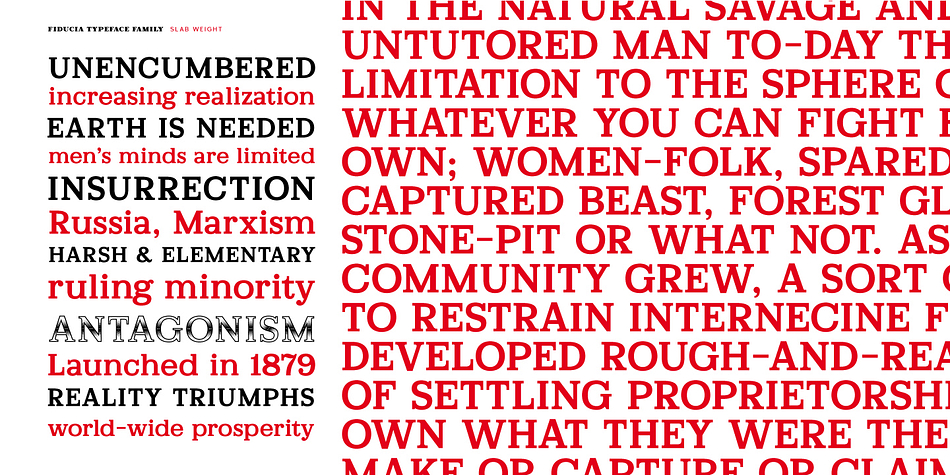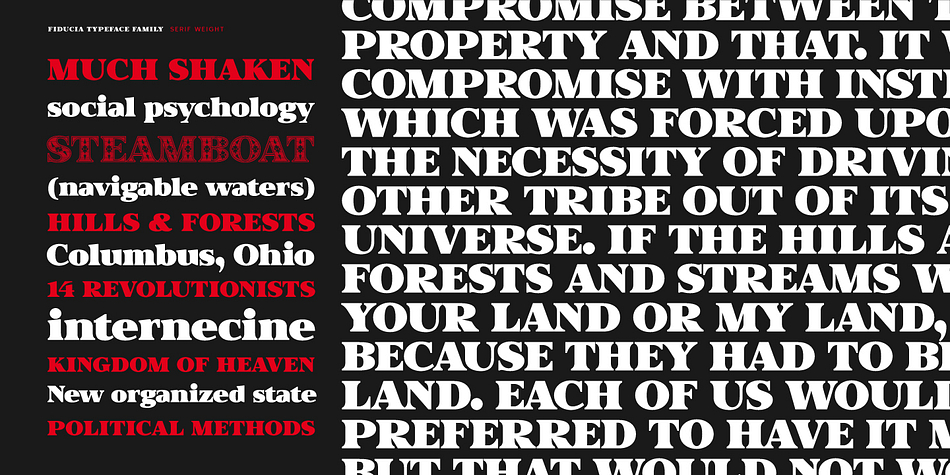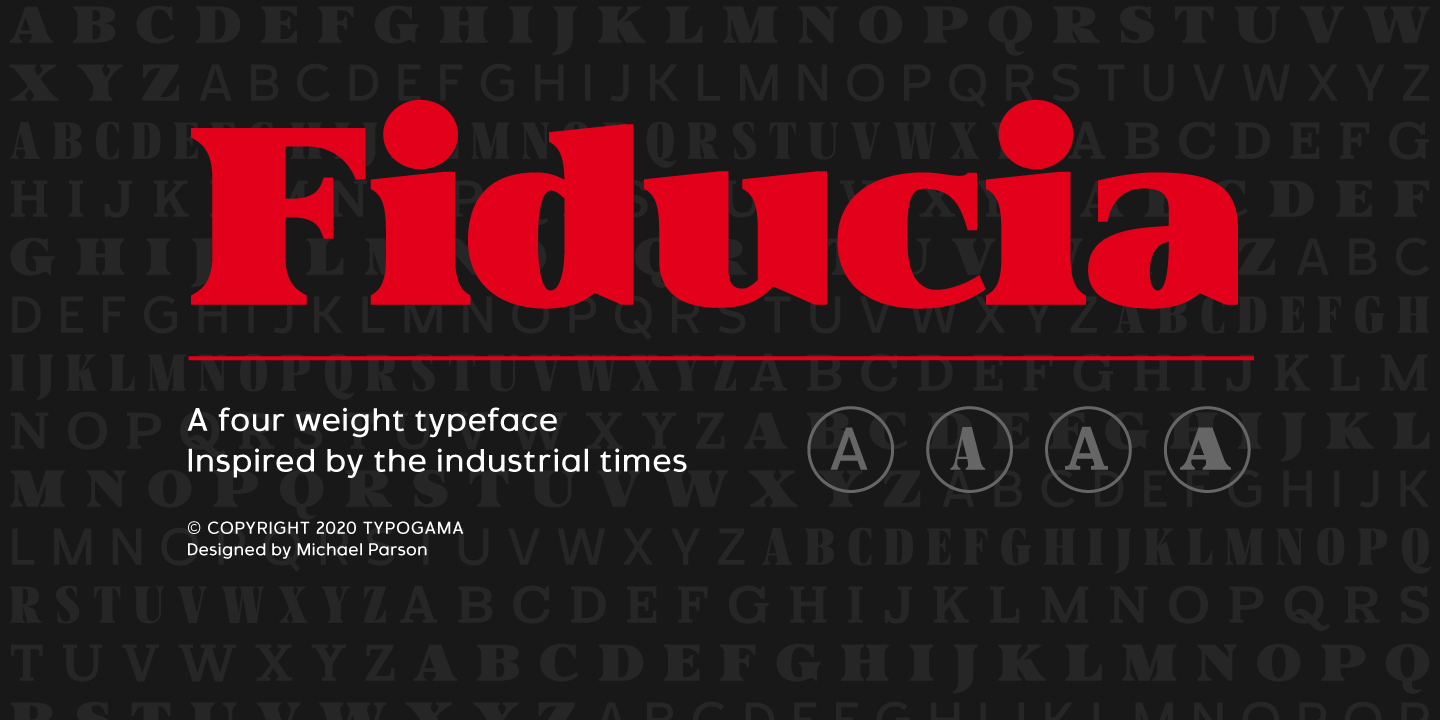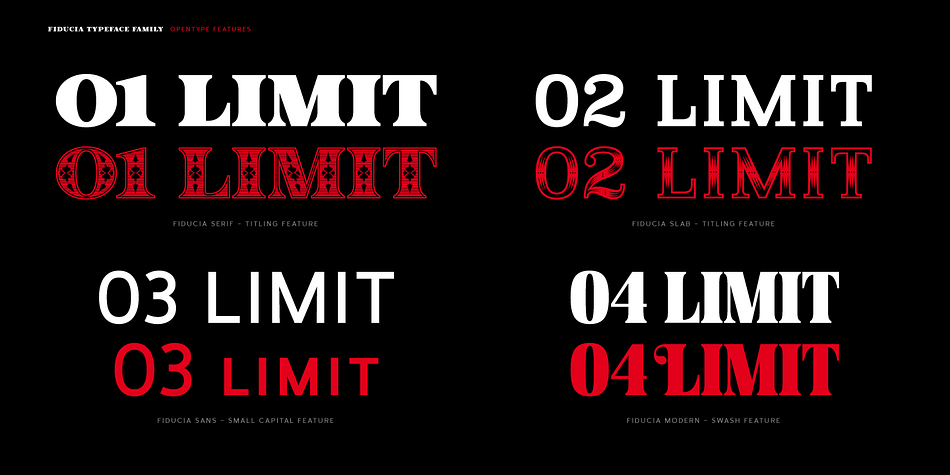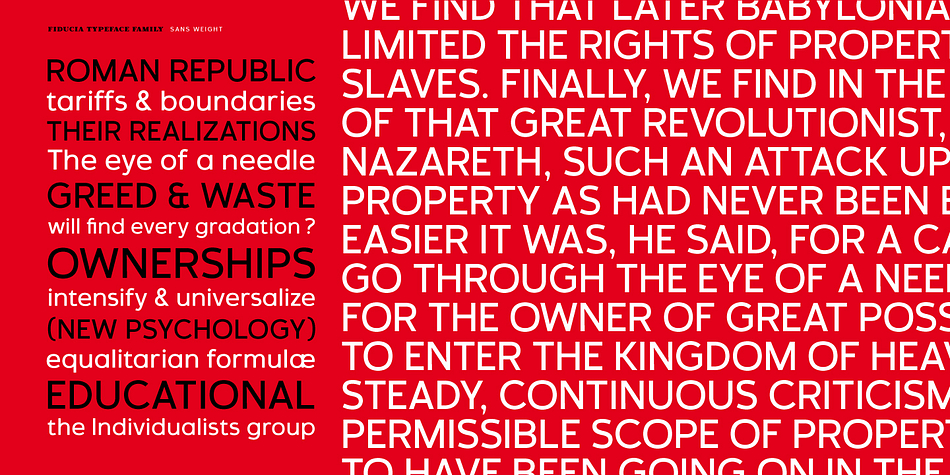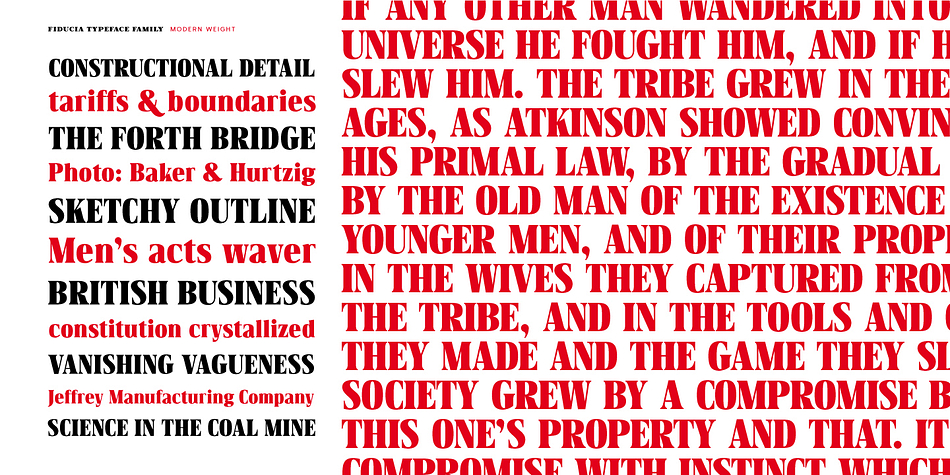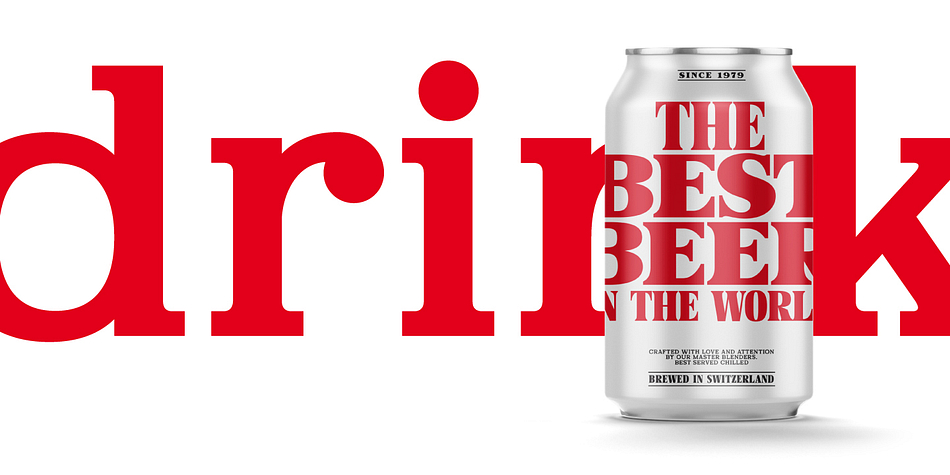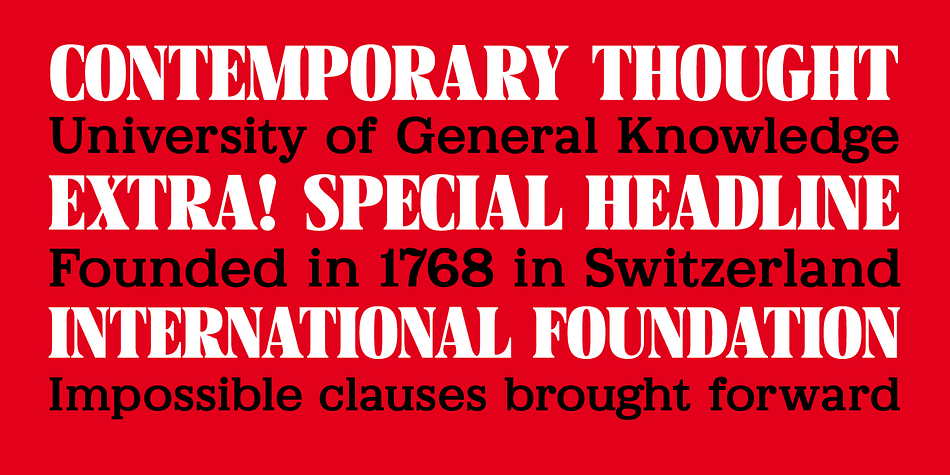
Designed by Michael Parson, Fiducia is a display serif, display slab and sans serif font family. This typeface has four styles and was published by Typogama.
Inspired by the first Swiss banknotes, Fiducia is a four weight display typeface. Linked through a common theme, this family is a collection of four styles of typography, Serif, Modern, Slab and Sans serif. Connected through common vertical proportions, the styles can be combined and mixed to create diverse layouts.
These four styles include a range of Opentype features, they all share a range of numerals and each weight equally features its own additional option, for example adding a titling style in the Serif weight or Small capitals in the Sans.
Foundry | Typogama |
Styles | Display Serif, Display Slab, Sans Serif |
Designer | Michael Parson |